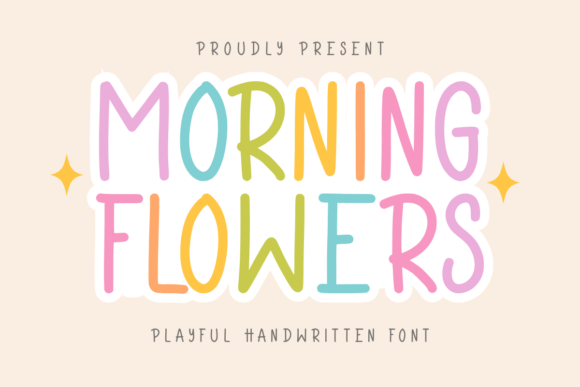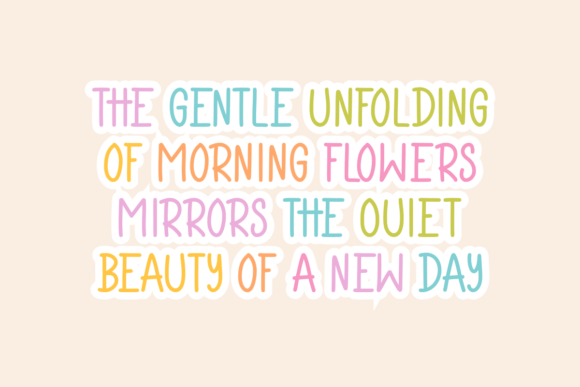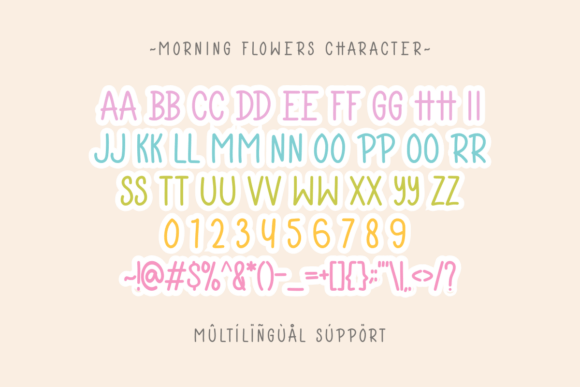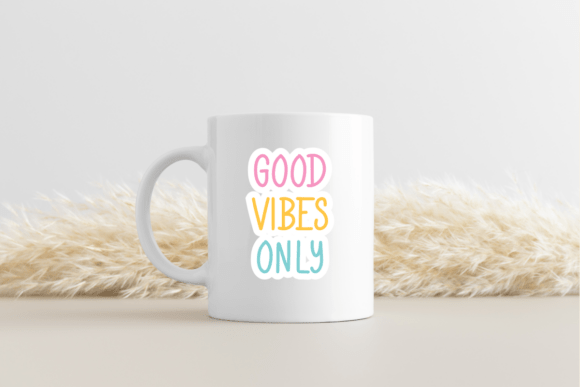
Morning Flowers Font: A Cute Handwritten Font for Cricut & DIY
About the Morning Flowers Font
Experience the unique personality of Morning Flowers Font, a font designed for impact. Morning Flowers is a cute and playful handwriting font, perfect for planners, stickers, cards, quotes, and craft projects. Ideal for creative moms who love DIY, journaling, and Cricut crafts!
Its playful, slightly informal style makes it excellent for branding projects targeting a young, female demographic, particularly those related to crafts, stationery, or children’s products. It works well in short headlines, logos, and social media graphics, adding a touch of handmade charm. However, its legibility suffers in extended text, making it unsuitable for body copy or lengthy passages.
Morning Flowers pairs beautifully with clean sans-serif fonts like Lato or Open Sans for a balanced contrast, grounding its whimsical energy. For a more sophisticated feel, consider pairing it with a delicate serif like Playfair Display. Avoid pairing it with other script fonts, as this can create visual clutter.
The overall personality is undeniably friendly and approachable, conveying a sense of warmth and creativity. Its informal nature should be considered when selecting appropriate branding applications.